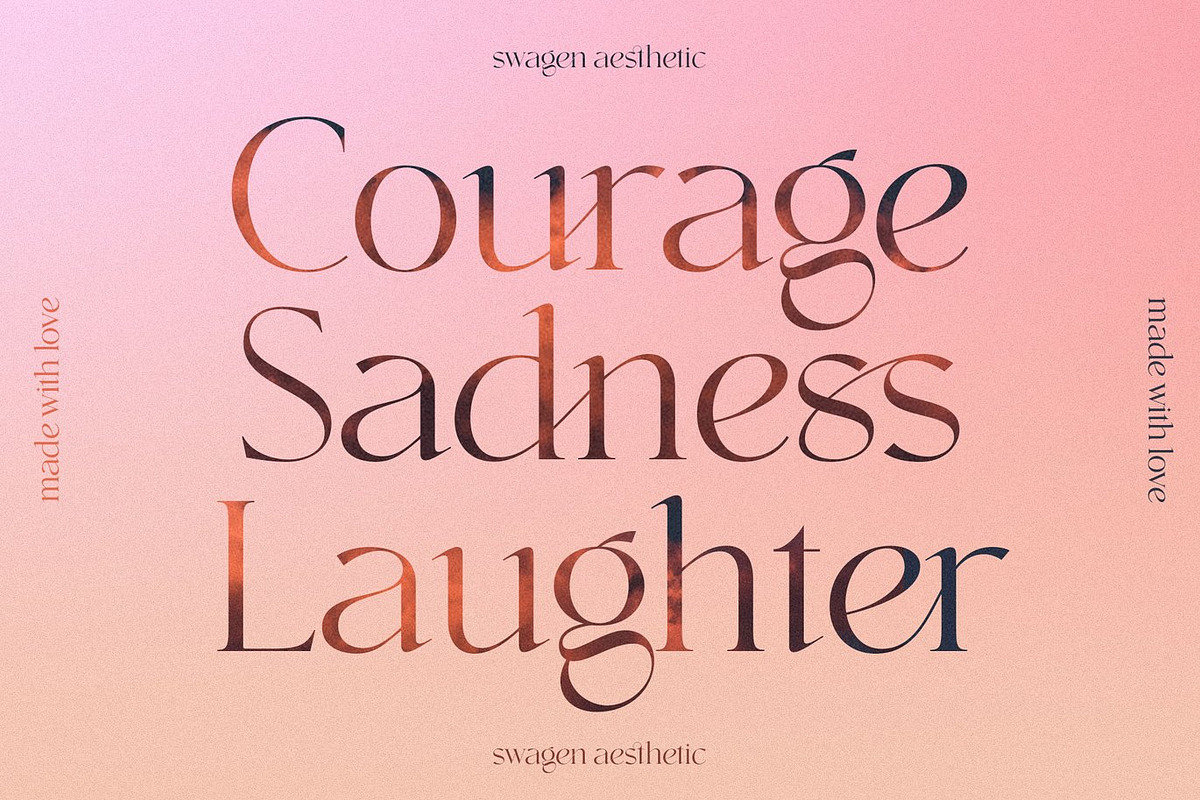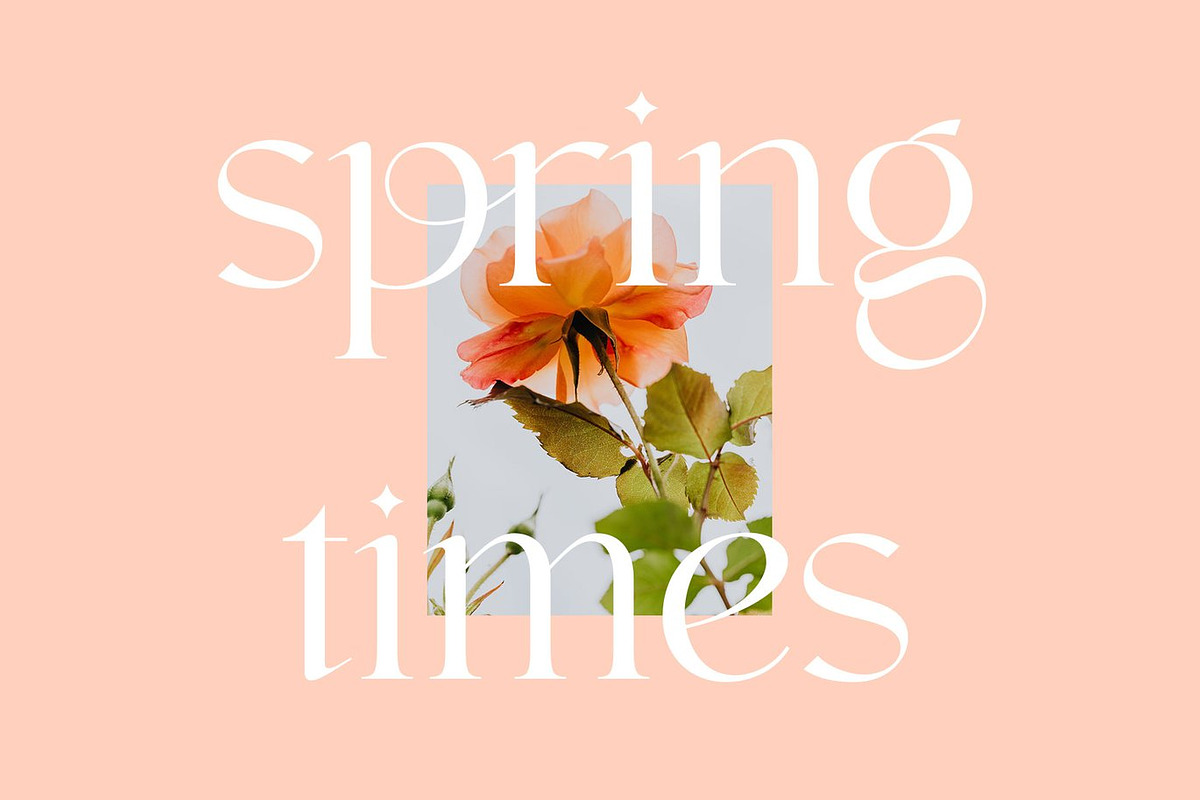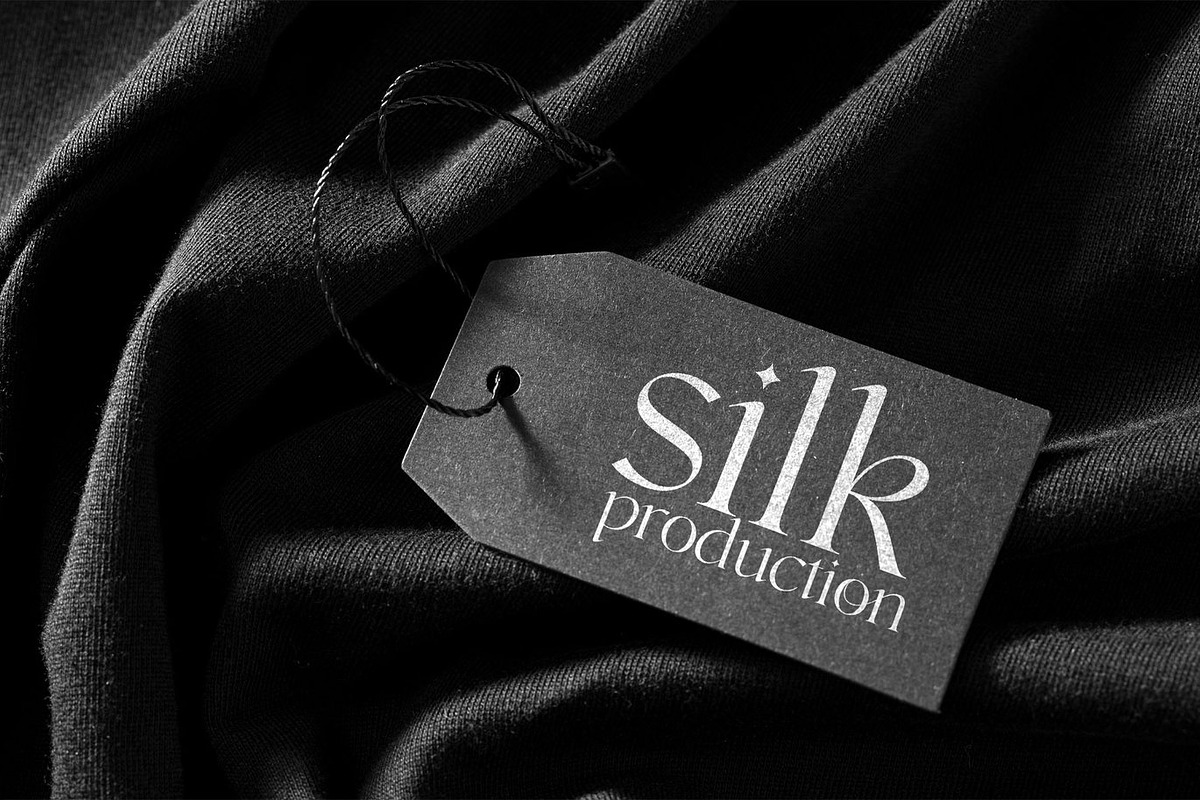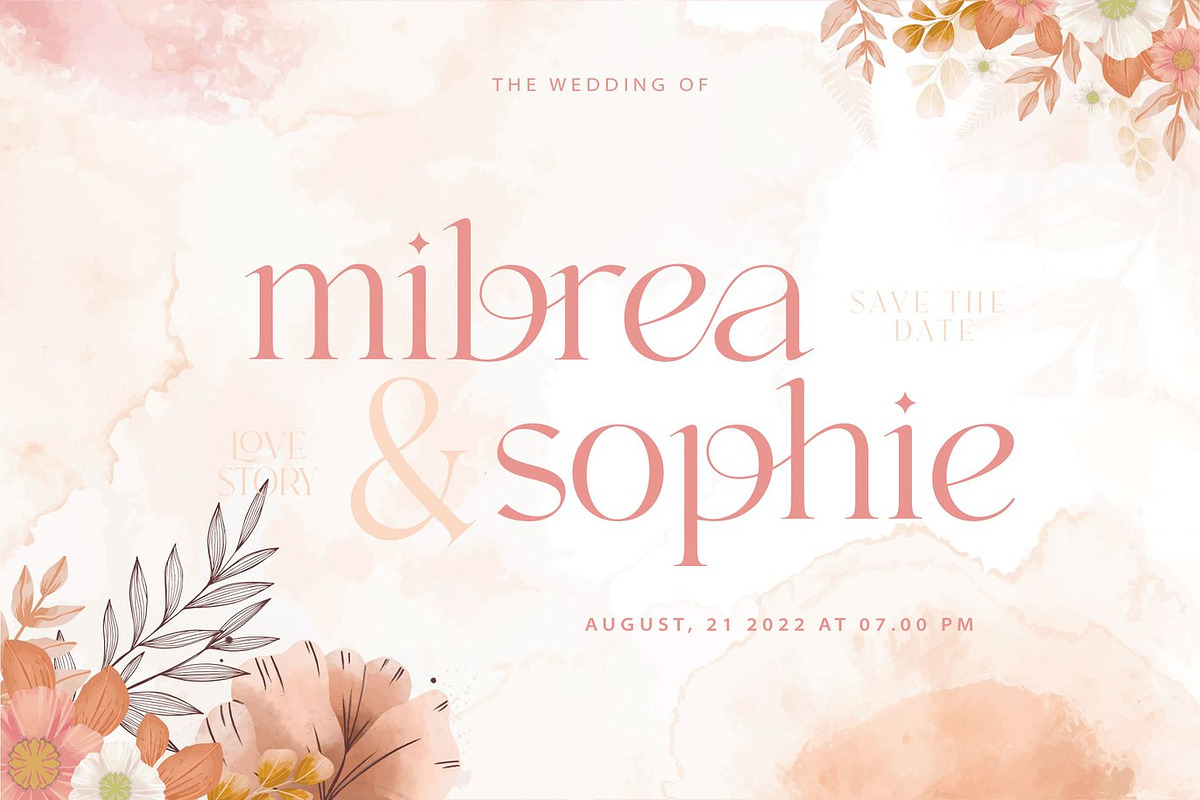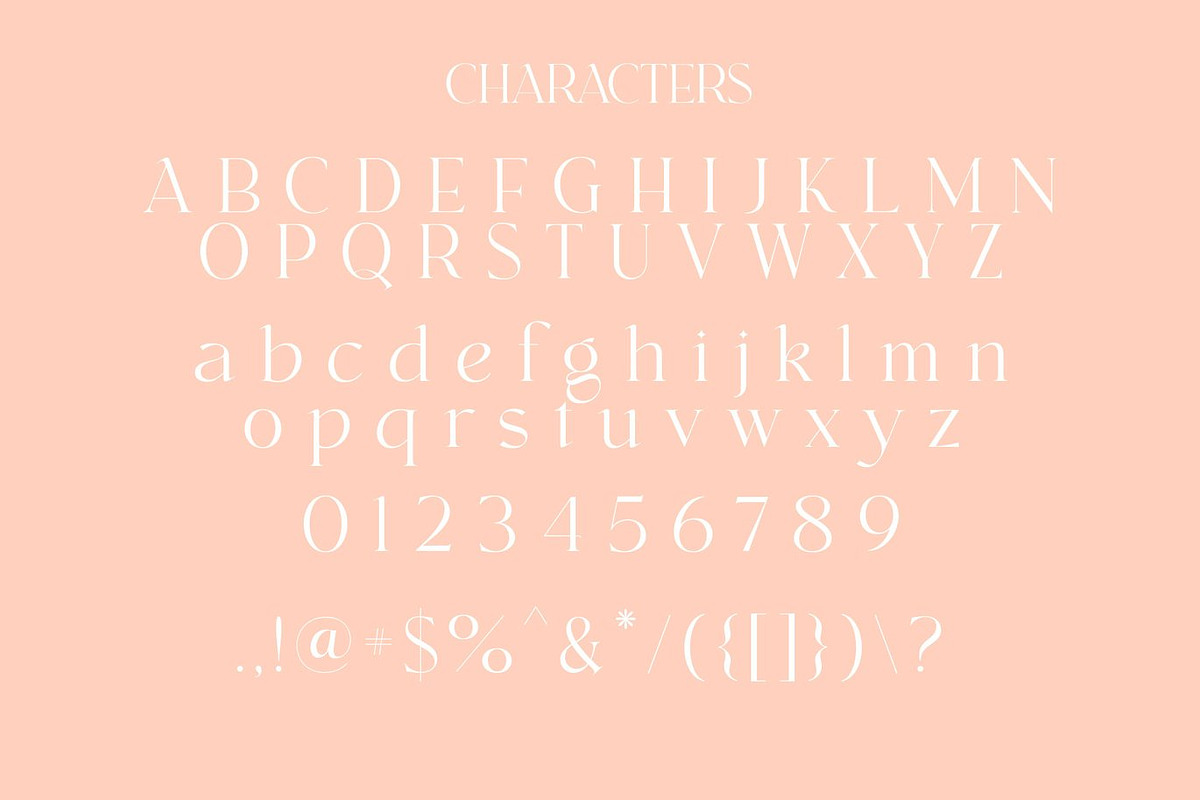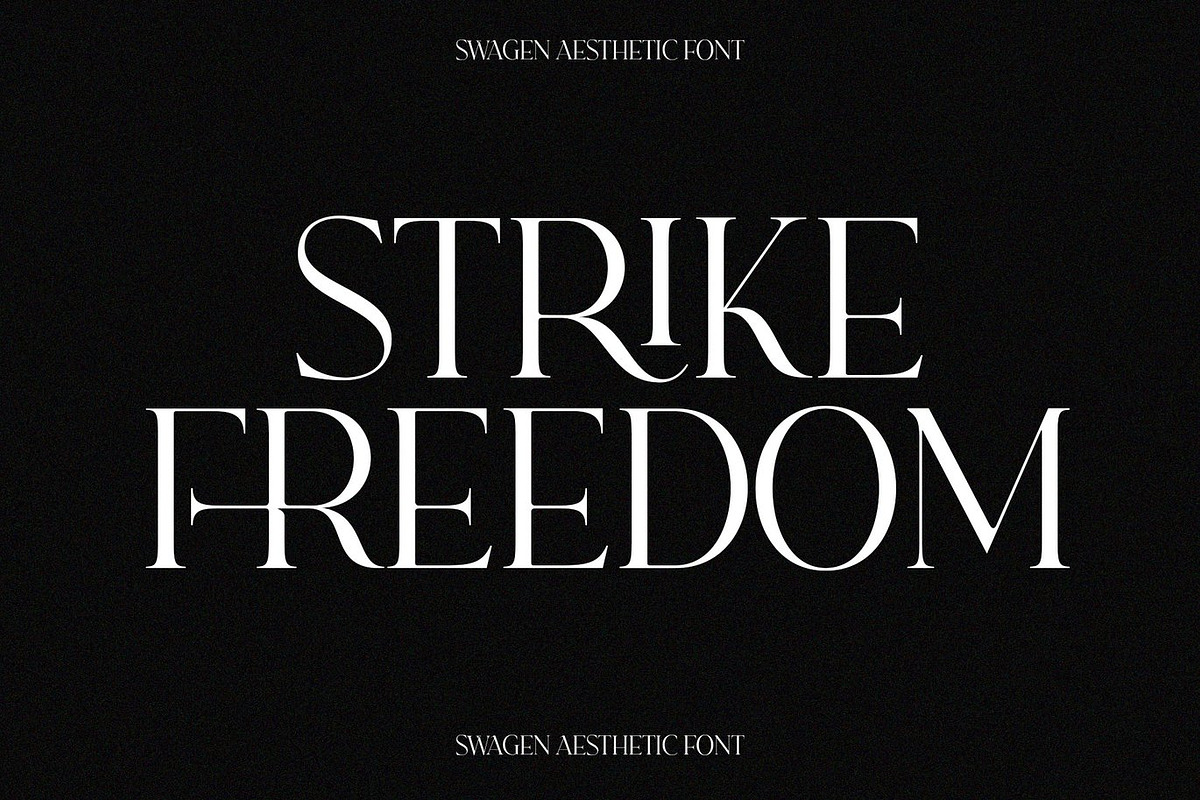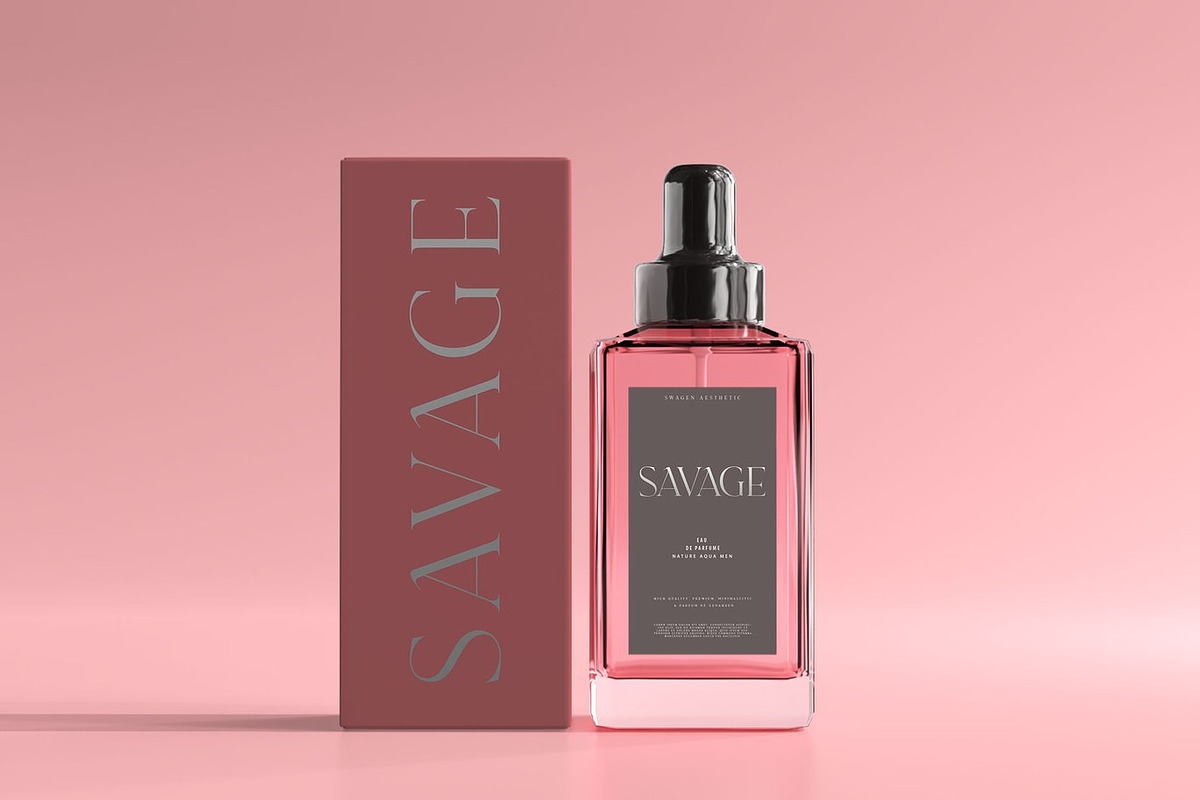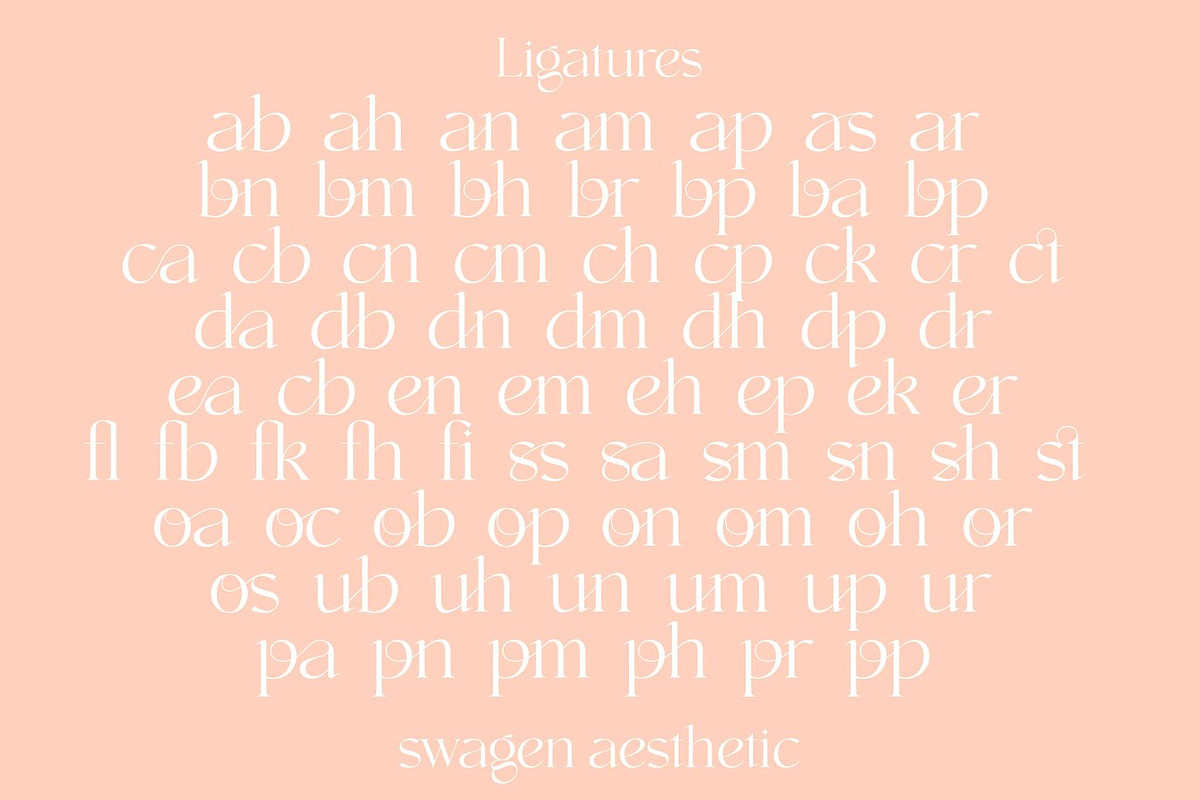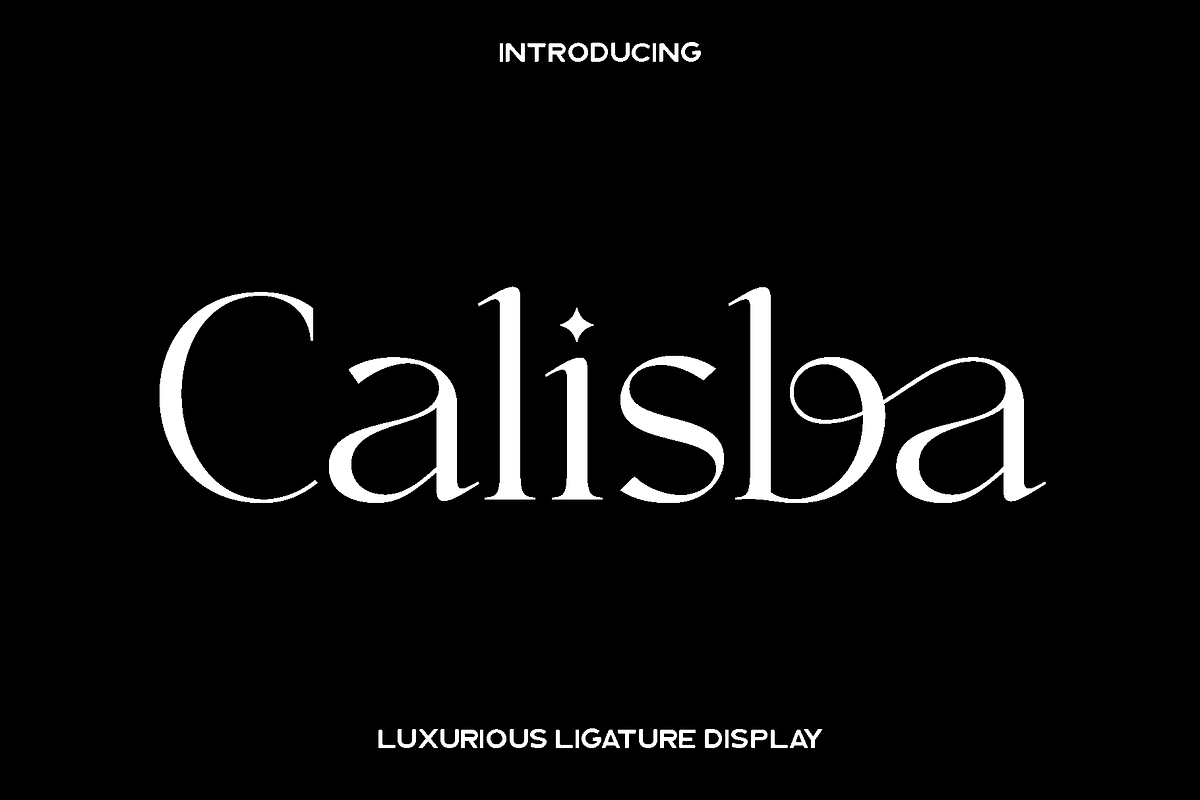
Calisba - Luxurious Ligature Display
Calisba is a luxurious display font crafted with exceptional attention to detail and a rich collection of ligatures. Designed to express elegance and refinement, Calisba combines clean structure with artistic sophistication, resulting in letterforms that feel polished, graceful, and premium. Every character is carefully shaped to deliver visual harmony, making your typography look refined and thoughtfully designed.
This font shines in projects that require a strong sense of luxury and style. Calisba is perfect for high end branding, logo design, fashion labels, beauty products, editorials, invitations, and premium packaging. Its abundant ligatures add a distinctive flow and personality, allowing designers to create custom looking typography with ease. Whether used for bold headlines or elegant titles, Calisba brings a confident and upscale presence to your designs.
Calisba feels elegant, modern, and exclusive. It is ideal for designers who want their work to stand out with a luxurious tone while maintaining clarity and balance. From digital designs to print applications, this font enhances visual appeal and leaves a memorable impression through its refined craftsmanship and stylish character set.
Calisba Luxury Font Features:
• Uppercase and lowercase letters
• Extensive ligature set
• Numbers and punctuation
• Multilingual support
Calisba is a perfect choice for creatives seeking a font that delivers elegance, detail, and timeless luxury in every design.